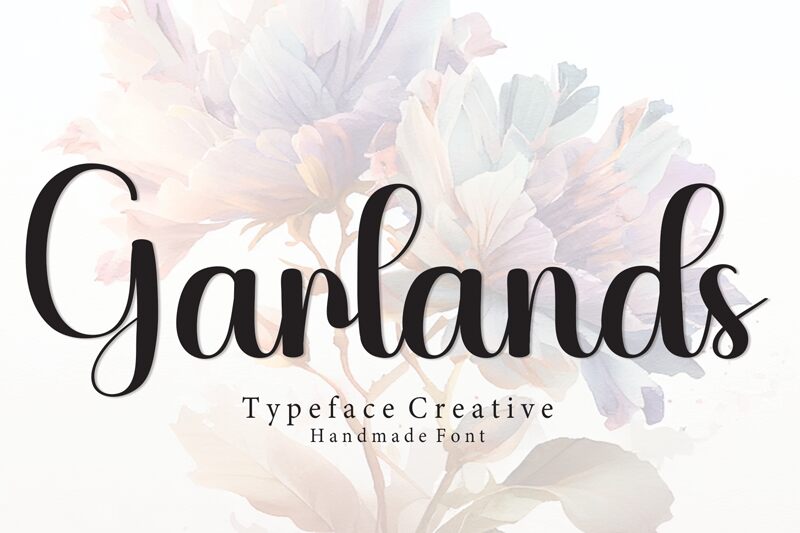
Garlands
Garlands font, designed by Scratchones, is a captivating handwritten script that effortlessly fuses charm and elegance. Its playful strokes and organic flow make it feel both personal and inviting, evoking a sense of warmth in every letter.
The font's distinctive character lies in its expressive curves and lively ascenders, which create an engaging visual rhythm. The way the letters dance together hints at spontaneity while maintaining a sophisticated allure.
Garlands is perfect for projects that seek to convey creativity and intimacy—ideal for wedding invitations, personalized gifts, or branding that aims to build a connection with its audience. With its unique flair, this font becomes an exquisite choice for any design endeavor that requires a touch of whimsy paired with heartfelt messaging.